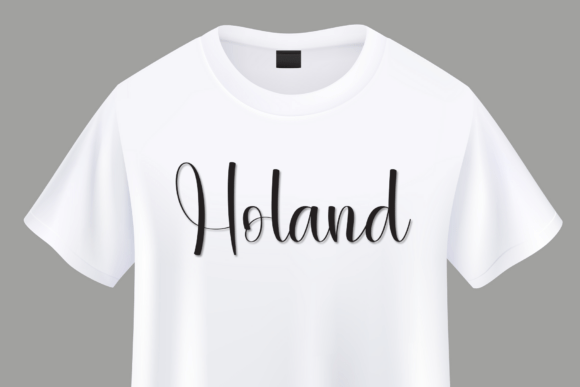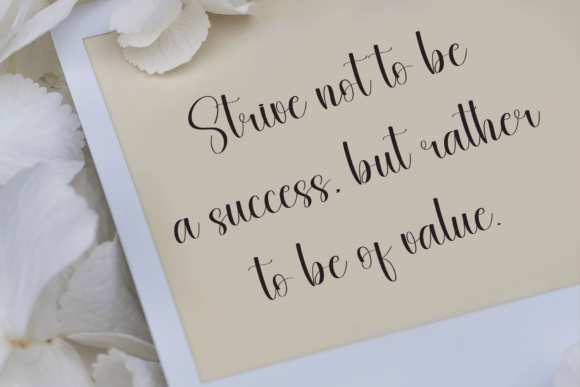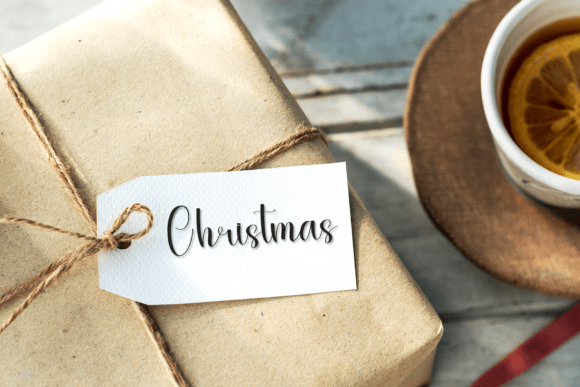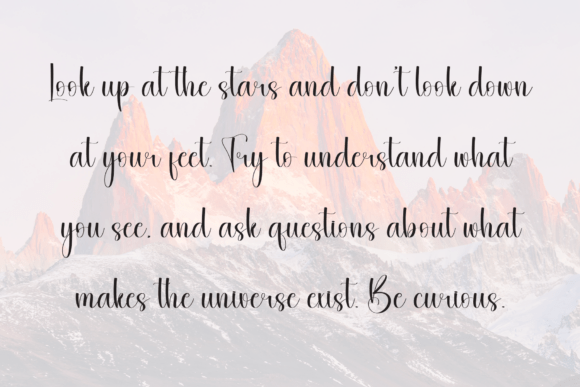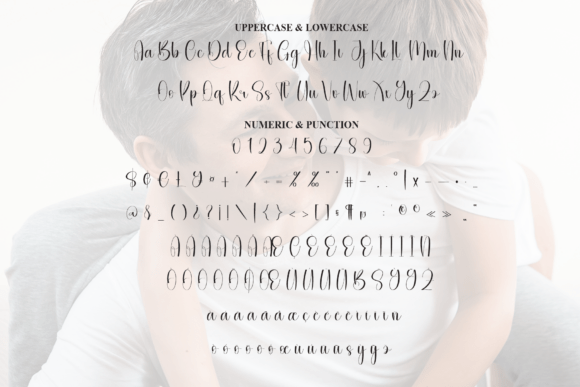
Daddy Font: Elevate Your Designs with Artistic Flair and Contemporary Elegance
In the world of typography, few fonts manage to strike a balance between artistic expression and modern sophistication. Daddy Font, however, achieves this delicate balance with ease. This stylish script font is designed to bring a touch of elegance and creativity to various design projects, making it a versatile tool for designers and crafters alike.
The Essence of Daddy Font
Daddy Font is characterized by its fluid brush strokes, dynamic curves, and expressive letterforms. These features combine to capture the essence of hand-painted calligraphy, but with a modern twist that sets it apart from more traditional fonts. The result is a font that exudes a sense of artistic flair and contemporary elegance, perfect for designs that require a bit of sophistication and creativity.
Key Features of Daddy Font
- Fluid Brush Strokes: The font’s fluid brush strokes give it a natural, hand-painted look that adds warmth and character to any design.
- Dynamic Curves: The dynamic curves in Daddy Font add a sense of movement and energy, making it perfect for designs that require a bit of dynamism.
- Expressive Letterforms: Each letterform in the font is designed to be expressive and unique, contributing to the overall artistic feel of the font.
Use Cases for Daddy Font
Daddy Font’s versatility makes it suitable for a wide range of design projects. Here are some of the most popular use cases:
- Logos: The font’s unique and artistic style makes it perfect for logos that require a bit of sophistication and creativity.
- Invitations: Whether it’s a wedding invitation or a party invite, Daddy Font adds a touch of elegance and class.
- Packaging: The font’s modern and artistic style makes it ideal for product packaging that requires a bit of flair.
- Social Media Graphics: From Instagram posts to Facebook graphics, Daddy Font can elevate your social media designs and make them stand out.
Benefits of Using Daddy Font
So, why choose Daddy Font for your design projects? Here are some benefits that make it an excellent choice:
- Visual Impact: The font’s unique style and expressive letterforms make it perfect for designs that require a bit of drama and flair.
- Versatility: Daddy Font can be used for a wide range of design projects, from logos and invitations to packaging and social media graphics.
Tips for Using Daddy Font Effectively
To get the most out of Daddy Font, here are some tips to keep in mind:
- Pair it with Simple Fonts: Pair Daddy Font with simpler fonts to create contrast and make your design stand out.
- Experiment with Colors: The font looks great in a variety of colors, so don’t be afraid to experiment and find the perfect hue for your design.
- Use it Sparingly: While Daddy Font is beautiful, it can be overwhelming if used excessively. Use it sparingly to create emphasis and add flair to your design.
Daddy Font is a stylish script font that can elevate your designs with its artistic flair and contemporary elegance. Its fluid brush strokes, dynamic curves, and expressive letterforms make it perfect for a wide range of design projects, from logos and invitations to packaging and social media graphics. With its natural flow and vibrant character, Daddy Font delivers both visual impact and versatility, making it an excellent choice for designers and crafters alike.
So, if you’re looking for a font that can add a touch of sophistication and creativity to your designs, look no further than Daddy Font. Its unique style and versatility make it an excellent addition to any designer’s toolkit.